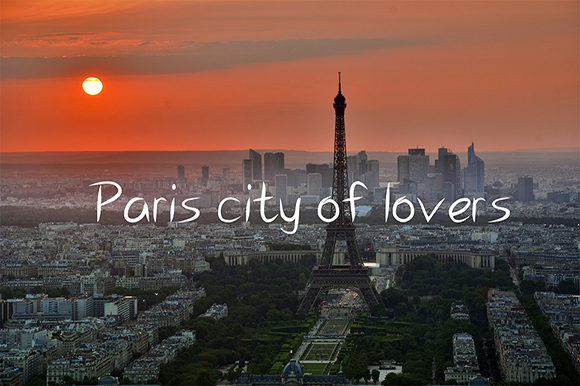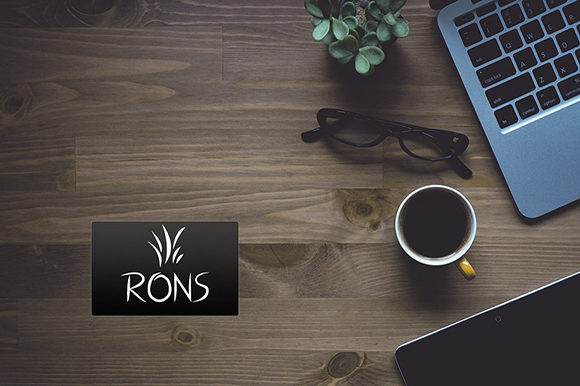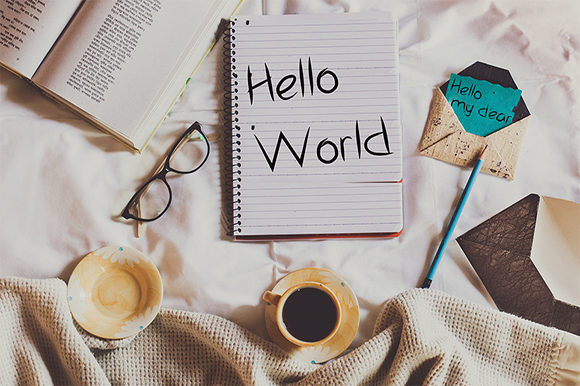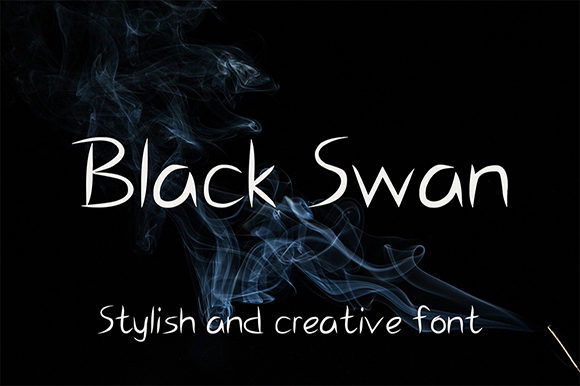
The Power of Black Swan Font: Elevate Your Designs with Modern Elegance
I’ll never forget the time I was working on a project for a luxury brand, and I was struggling to find the perfect font to convey their high-end aesthetic. The client wanted something modern, sleek, and sophisticated, but everything I tried seemed to fall flat. That’s when I discovered Black Swan Font, and it was like a lightbulb went off in my head. This stunning display font has since become a staple in my design toolkit, and I’m excited to share its awesomeness with you! 😊
An Honest Review of Black Swan Font
So, what makes Black Swan Font so special? Let’s dive into the good stuff and a few quirks to keep in mind.
- ✨ Modern and sleek design: Black Swan Font has a super contemporary feel that’s perfect for luxury brands, high-end products, or any project that needs a touch of sophistication.
- ✅ Highly versatile: This font can be used for headlines, titles, and even short paragraphs, making it a great addition to any design project.
- 💥 Emotional impact: The elegant lines and curves of Black Swan Font evoke a sense of drama and glamour, making it perfect for projects that need to make a statement.
While Black Swan Font is an amazing addition to any design project, there are a few things to keep in mind:
- ⚠️ Legibility at small sizes: Like many display fonts, Black Swan can get a bit tricky to read at smaller sizes. Make sure to use it for headlines or titles, and pair it with a clear, readable font for body text.
- 🤔 Overuse: With a font as beautiful as Black Swan, it’s tempting to use it everywhere. Be mindful of overusing it, and save it for special moments in your design.
The Backstory of Black Swan Font
While the origins of Black Swan Font are shrouded in mystery, it’s clear that the designer was inspired by the beauty and elegance of the natural world. The font’s sleek lines and curves evoke the image of a black swan gliding effortlessly across the water – a true marvel of nature.
Q: What is the best way to use Black Swan Font?
A: Black Swan Font is best used for headlines, titles, and short paragraphs where you want to make a statement. Pair it with a clear, readable font for body text to create visual interest.
Q: Is Black Swan Font suitable for body text?
A: While Black Swan Font is beautiful, it’s not ideal for long blocks of body text. Its elegant lines and curves are best suited for headlines and titles where you want to make a statement.